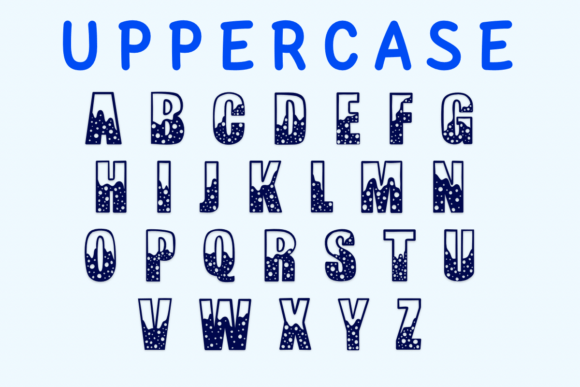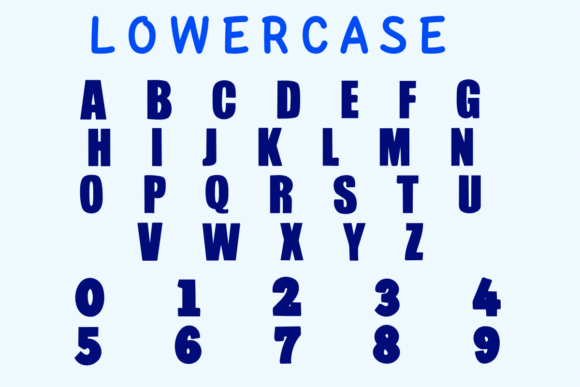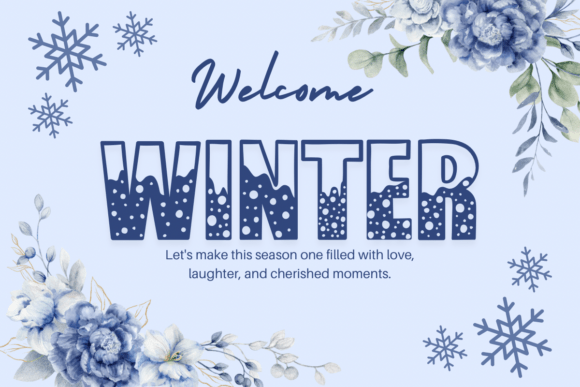
Christmas Snow Winter Font
❄️ Christmas Snow Winter – Decorative Font ❄️
Christmas Snow Winter is a festive decorative font that captures the magic of the holiday season. With bold shapes, snowy textures, and playful winter vibes, this font is the perfect choice for bringing a cheerful touch to your creative projects.
Designed to stand out, it is ideal for Christmas cards, holiday invitations, party decorations, posters, social media posts, gift tags, crafts, and seasonal branding. The fun snow-dipped style instantly adds a cozy, joyful feel that celebrates the spirit of winter and Christmas.
Whether you’re creating DIY crafts, digital designs, or professional holiday projects, Christmas Snow Winter will make your work sparkle with festive charm.